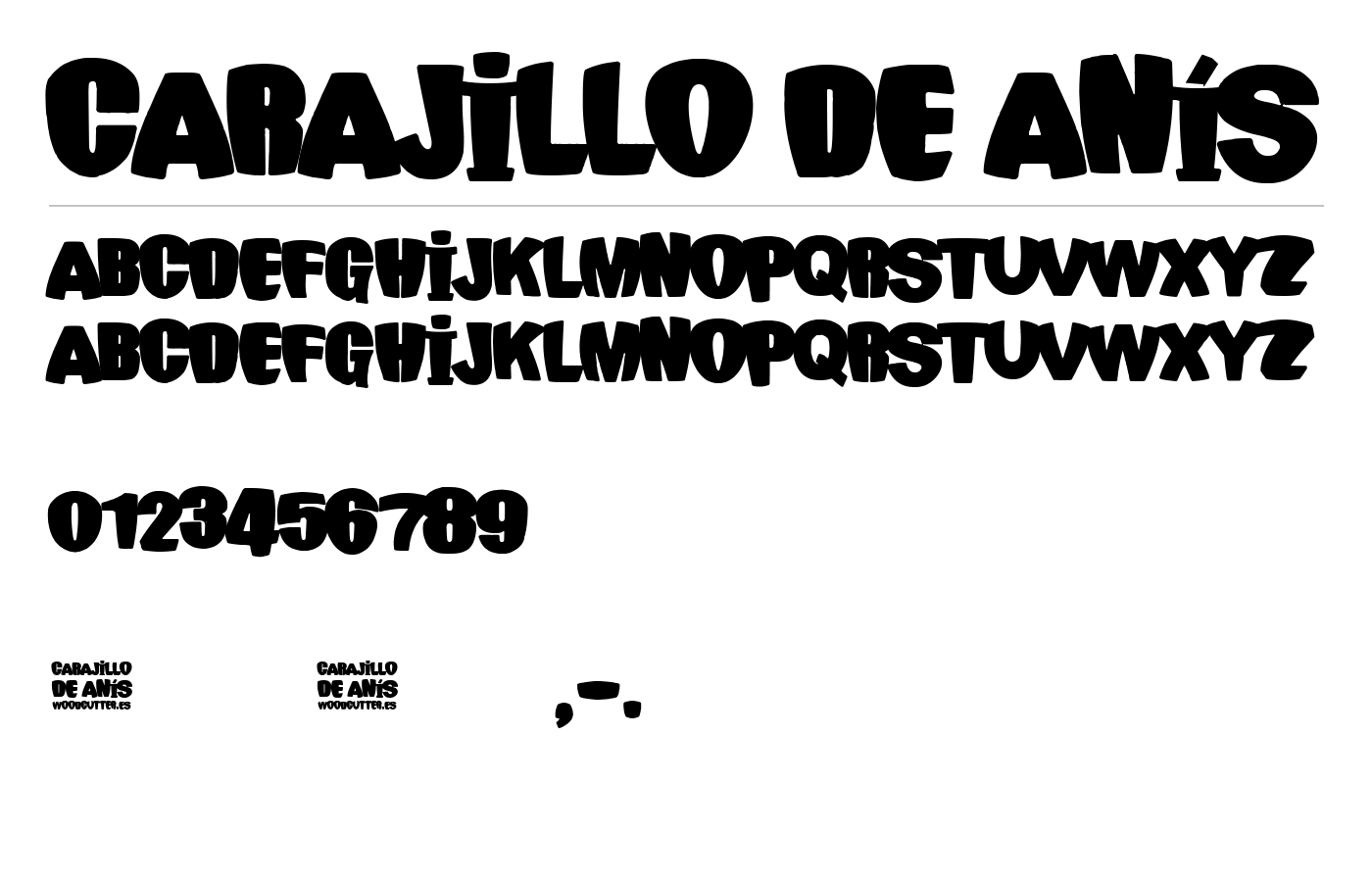
Carajillo de Anís is a bold, playful sans serif font with a chunky, rounded style that gives it a friendly and informal character. Its heavy weight and condensed letterforms make it stand out, perfect for attention-grabbing headlines, logos, or packaging where a fun and approachable vibe is desired. This font works best in creative, casual contexts that benefit from a bold and lively personality.
Carajillo de Anís Font
About Carajillo de Anís Font